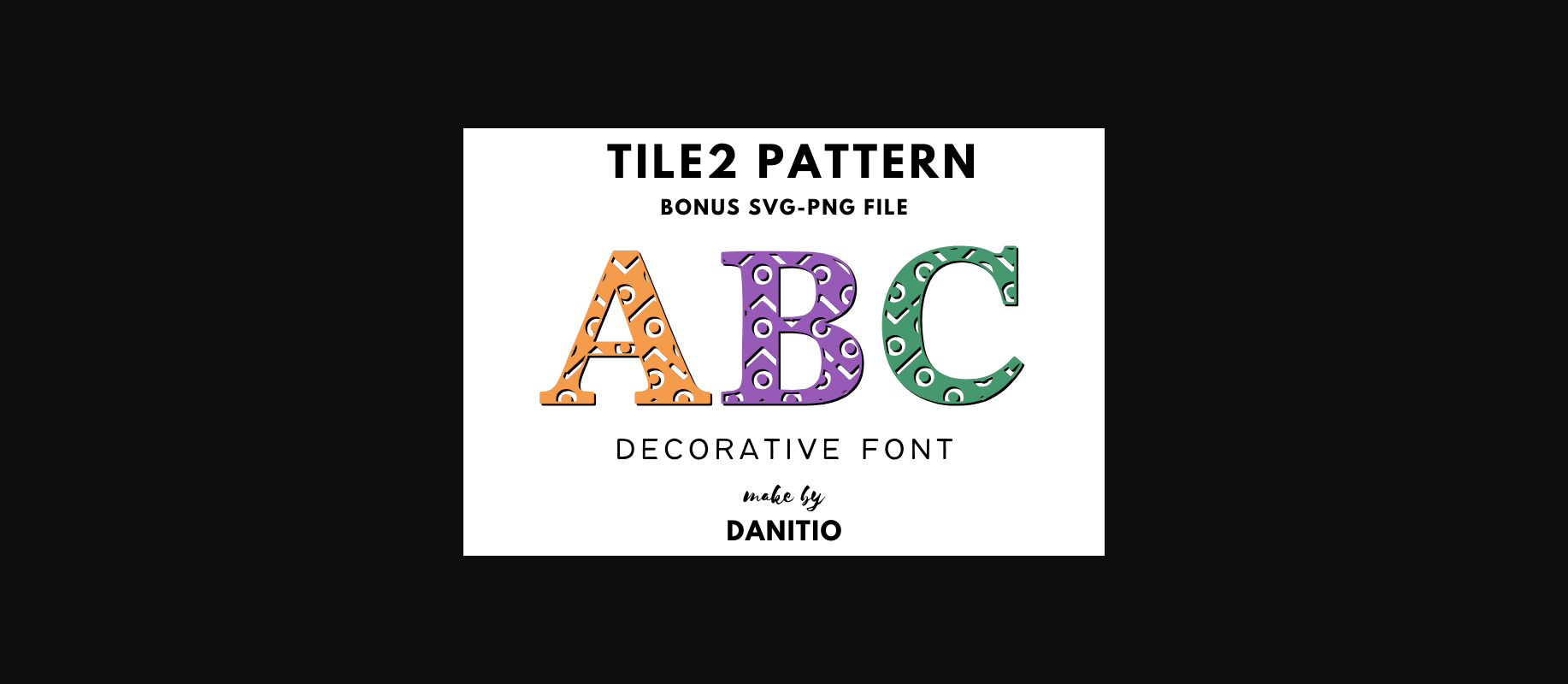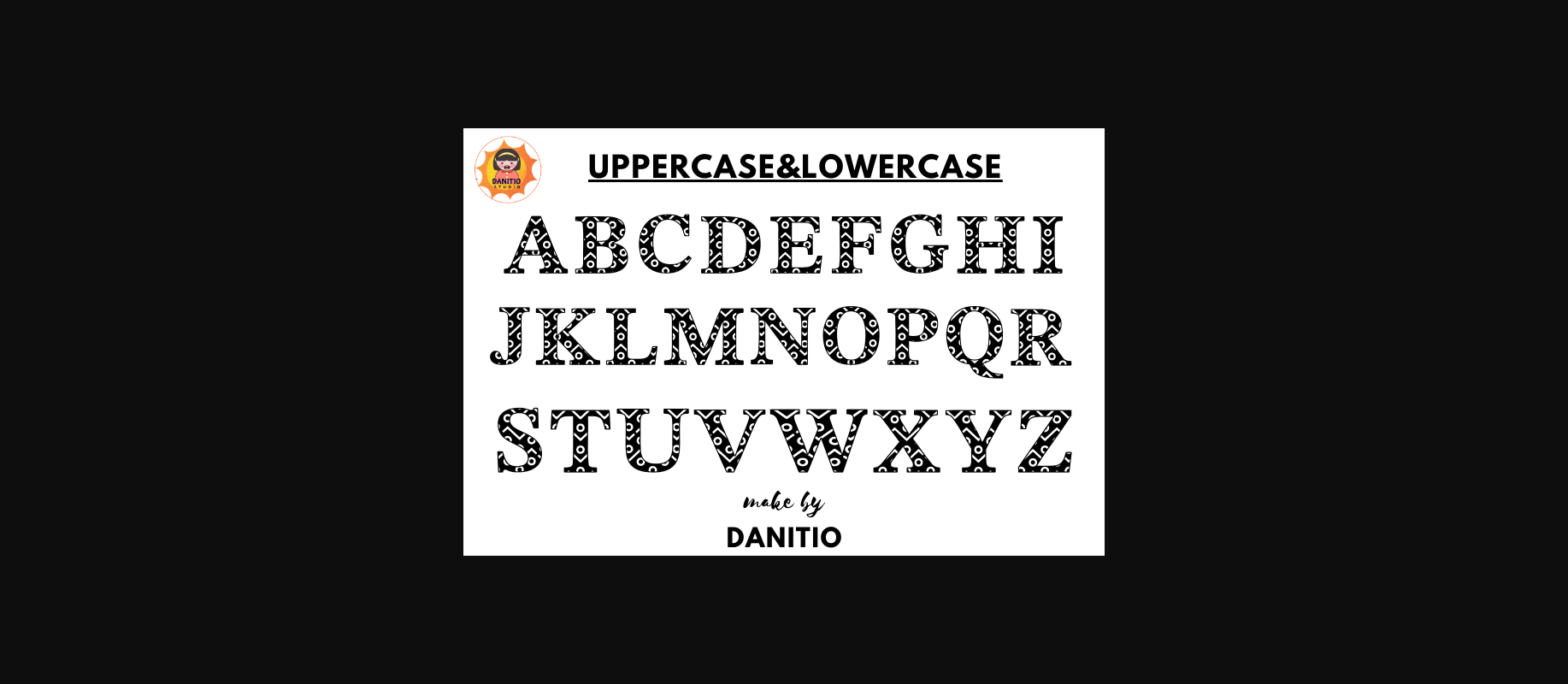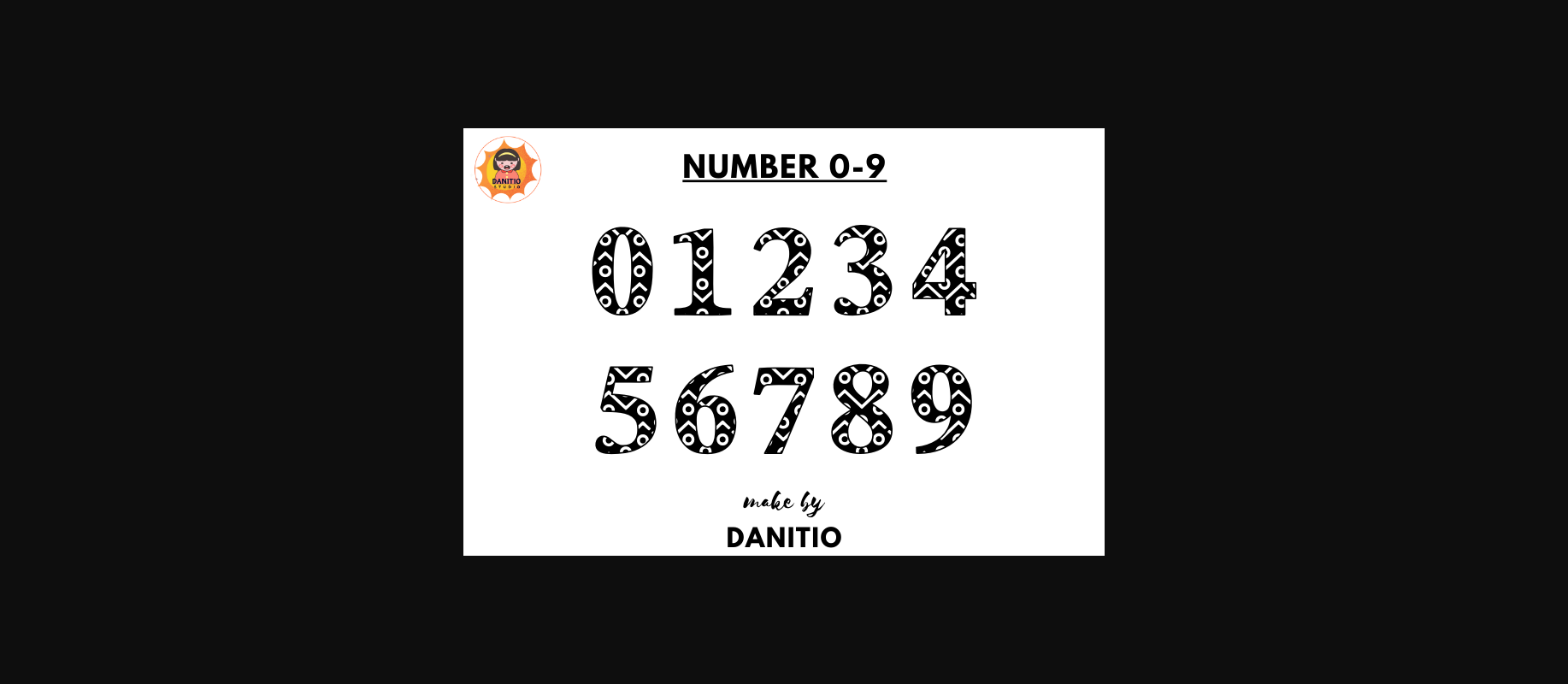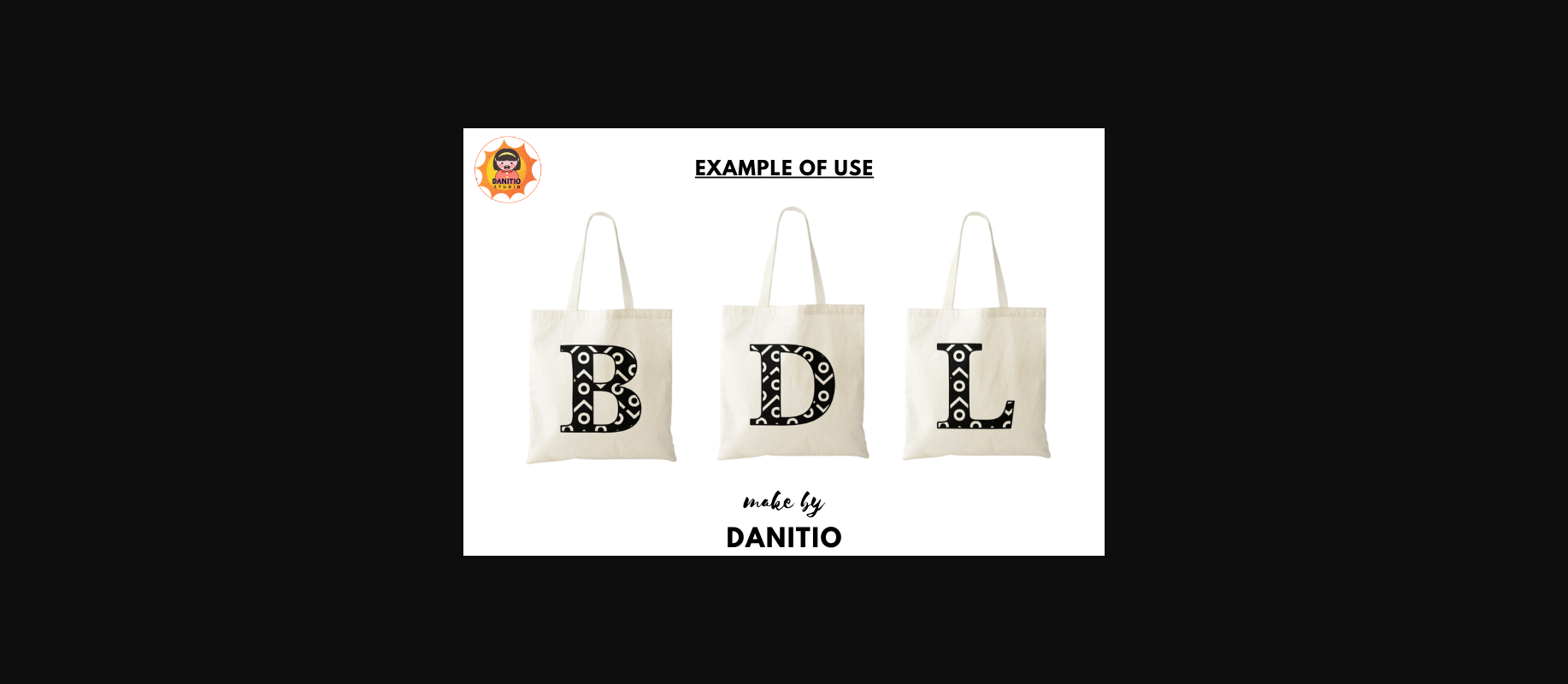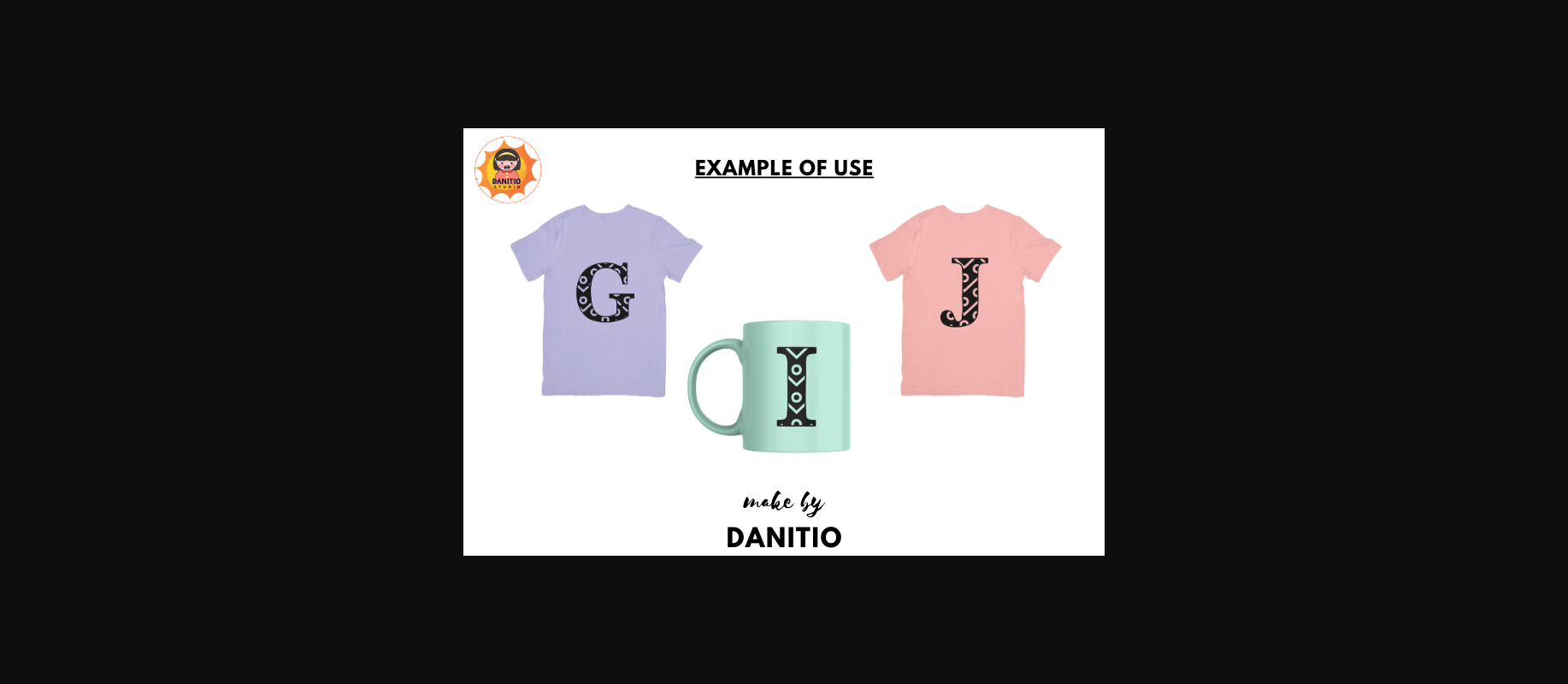
Tile 2 Pattern Font
About Tile 2 Pattern Font
Tile2 Pattern is a perfect combination of charming and geometric shapes that come together to create beautiful, intricate patterns that blend to give a touch of romance to every design. Perfect for wedding invitation cards, personal stationery, or decorations, infuses every character with blooming elegance and elegance.